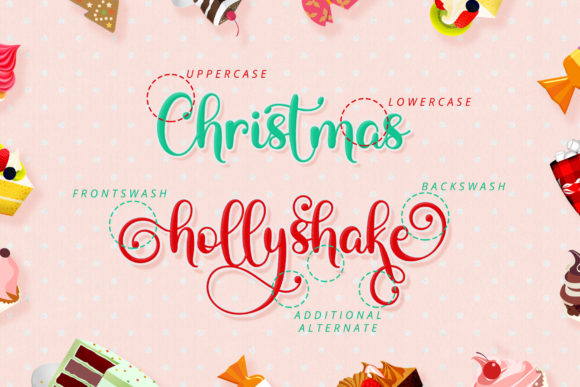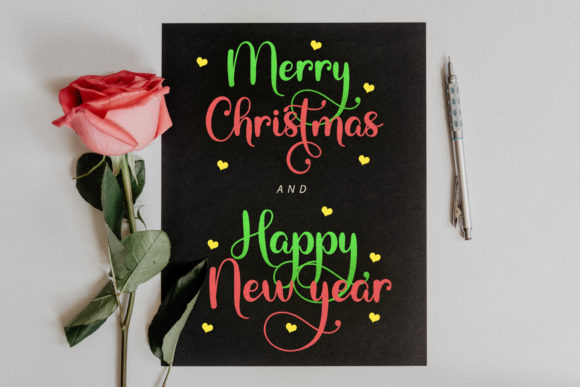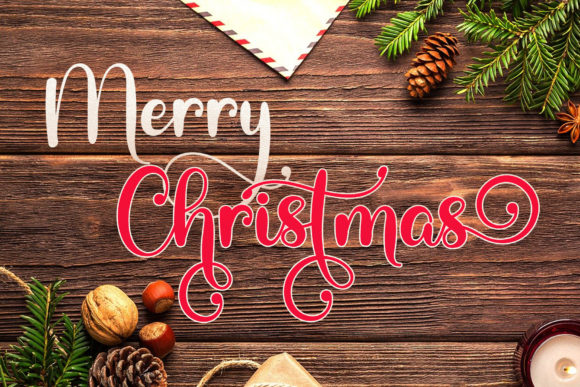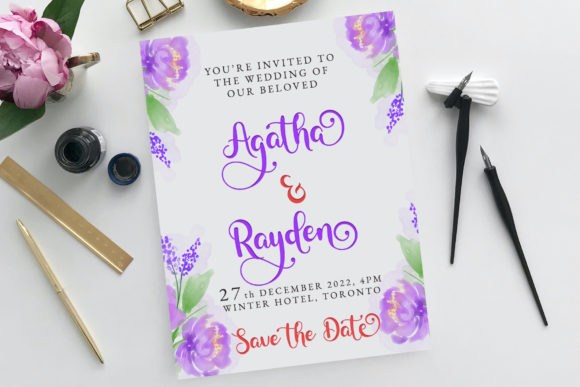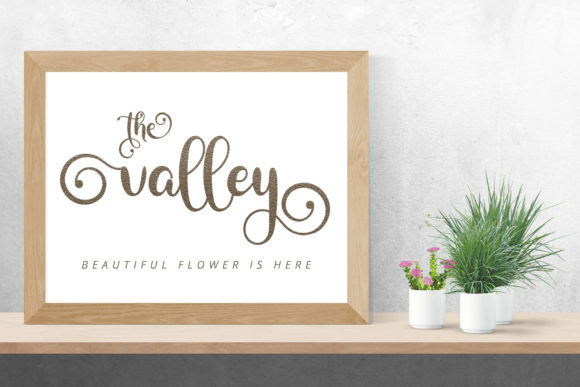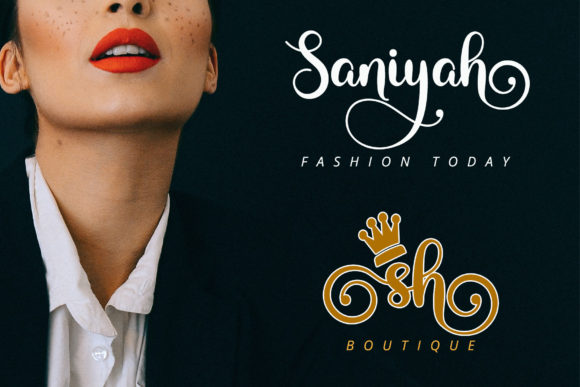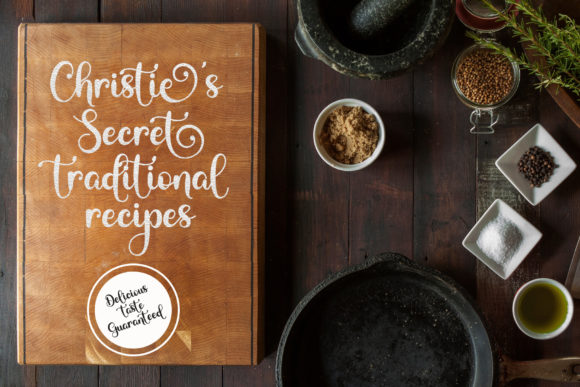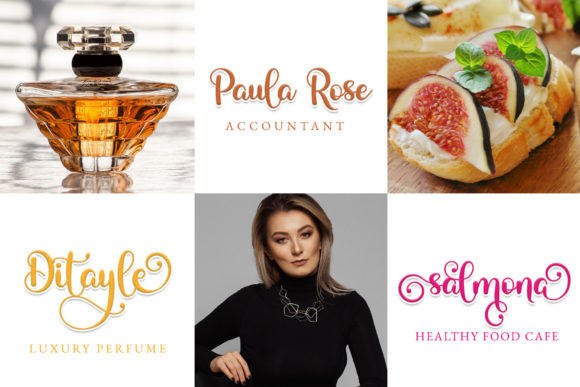
Christmas Jellyshake Font
Christmas Jellyshake is a beautiful and sweet calligraphy font. It is fresh, modern, and elegant. This font will look amazing in a great amount of projects, from wedding invitations and greeting card to social media quotes, branding and more!